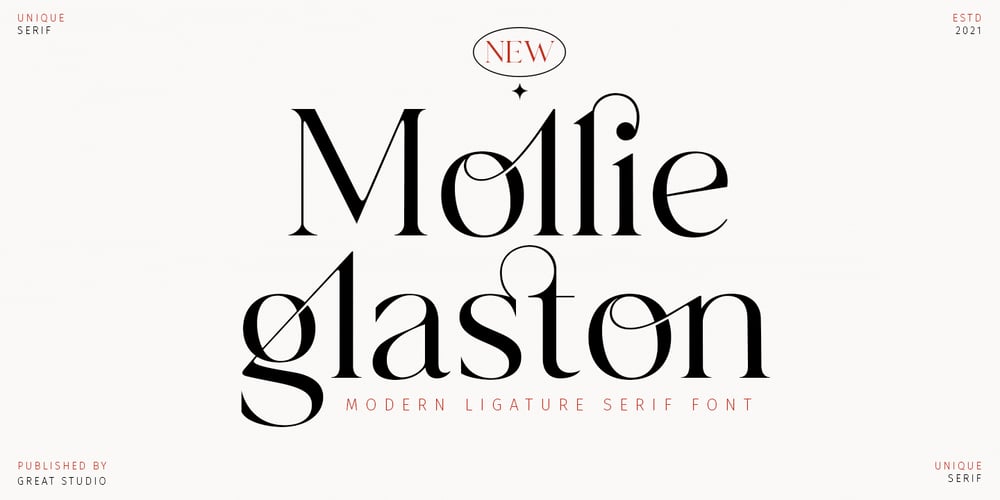
Mollie Glaston Font Family was designed by Mulkan Nazir and published by Great Studio. Mollie Glaston contains 1 styles and family package options. Mollie Glaston is a modern serif font with a unique ligature style, a high contrast and light font perfect for feminine logo signs, fashion heads & editorial designs, branding projects, Clothing Branding, packaging, magazine headings, advertising, T-shirts, postcards and much more. Mollie Glaston is also included full set of: Uppercase and lowercase lettersAutomatic ligaturesMultilingual charactersNumeralsPunctuation